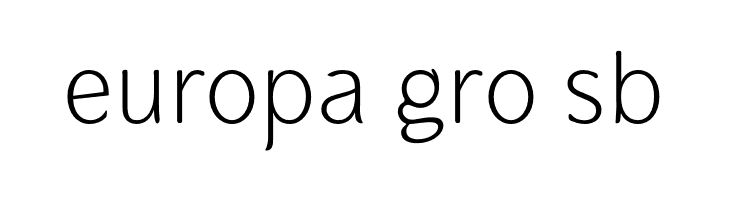
A clean, modern font with clear, consistent characters and Japanese katakana elements.
A modern, rounded sans-serif font with a clean and approachable style.
A sleek, modern font with thin, elegant strokes and a sophisticated appearance.
A modern, thin sans-serif font with a clean and minimalist design.
A modern sans-serif font with smooth curves and uniform strokes.